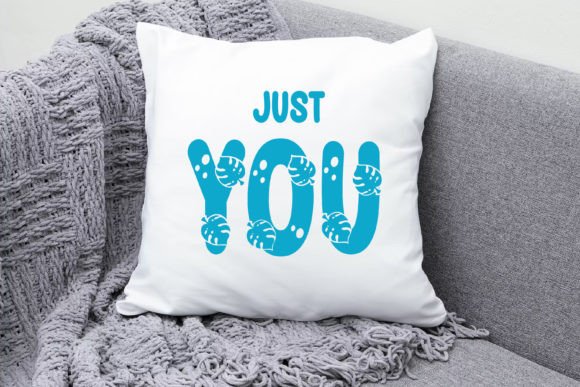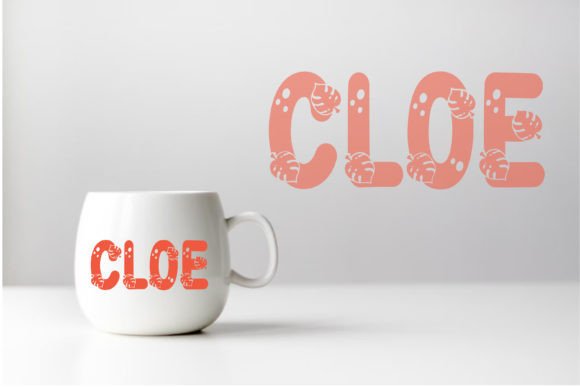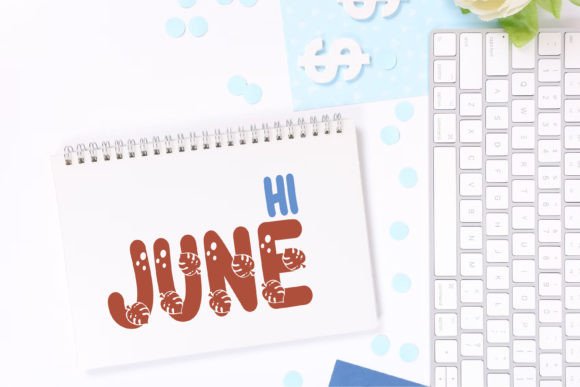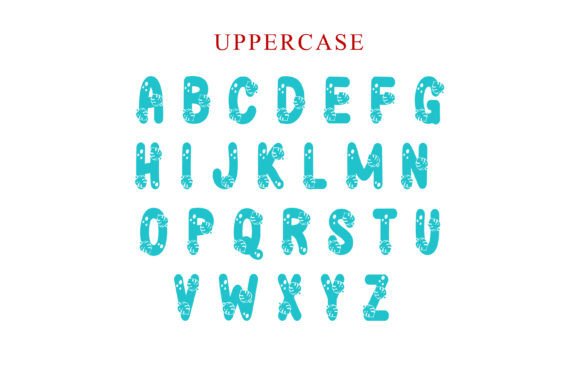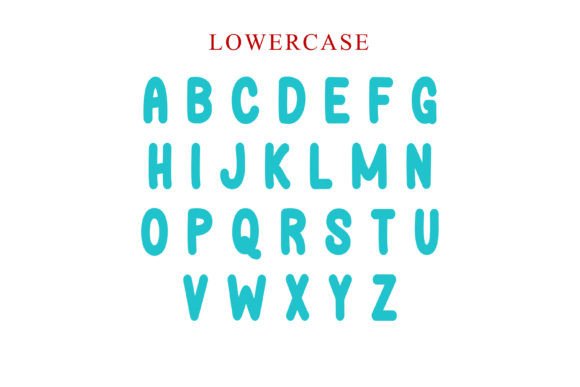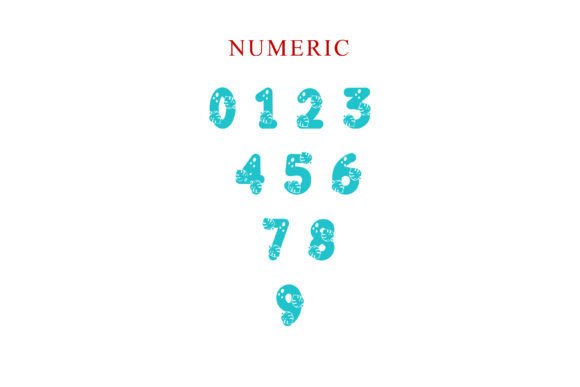
Introduction to Monsterana Font
Imagine strolling through a vibrant summer market, surrounded by colorful stalls and eclectic decorations. You stumble upon a quirky sign that catches your eye – a handcrafted masterpiece with the Monsterana Font adorning it. The thick, playful letters seem to dance across the transparent background, drawing you in with its unique charm. This enchanting moment sparks a creative idea, and you can’t wait to incorporate the Monsterana Font into your next design project.
As a designer, you’re always on the lookout for high-quality design resources that can elevate your creative projects. The Monsterana Font is an excellent addition to your toolkit, offering a free download that’s perfect for summer-themed designs. Its versatility and distinctiveness make it a valuable asset for any designer looking to add a touch of personality to their work.
- Unique characteristics: Distinctive, hand-drawn style and intricate details, making it a standout design resource
Honest Review: Monsterana Font
I recently came across the Monsterana Font and I must say it’s been a game-changer for my creative projects. The high quality design and transparent background make it a fantastic resource for any design enthusiast.
- ✨ Unique design: The Monsterana Font has a distinct and quirky style that sets it apart from other fonts. It’s perfect for adding a touch of whimsy to your creative project.
- ✨ Customization: The font is highly customizable, allowing you to adjust the size, color, and style to fit your design needs.
However, I do have a few reservations. ⚠️ Some users may find the font too bold: While I love the Monsterana Font’s unique style, it may not be suitable for all design projects. If you’re looking for a more subtle font, you may want to consider other options.
Overall, I’m thoroughly impressed with the Monsterana Font. Its high quality design, transparent background, and free download make it a fantastic design resource for any creative project. I highly recommend giving it a try!
The Monsterana Font is ideal for a variety of creative projects, including graphic design, digital art, and typography. It’s also perfect for use in branding and marketing materials, such as logos, business cards, and brochures.
Compared to Monsterana Font, Great Vibes Font has a more refined, sophisticated look, making it better suited for high-end creative projects. While Monsterana Font is a fun, playful font, Great Vibes Font is more elegant and versatile.